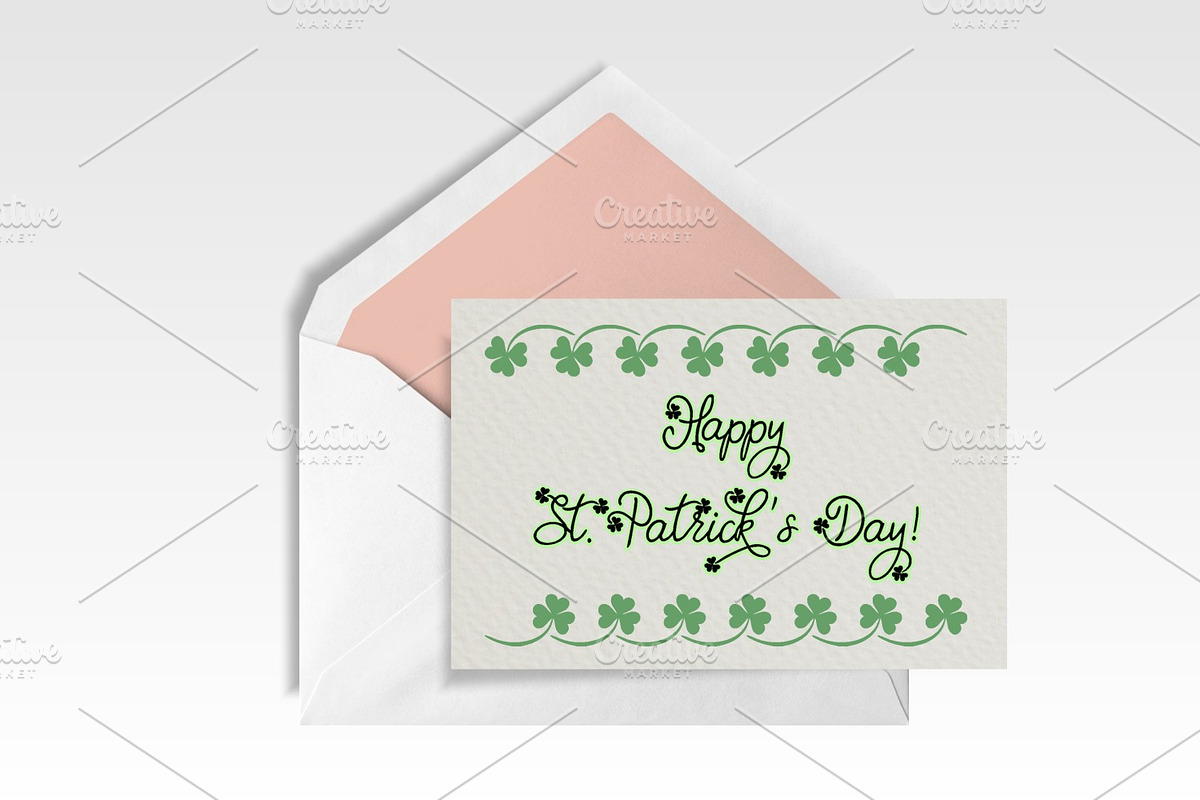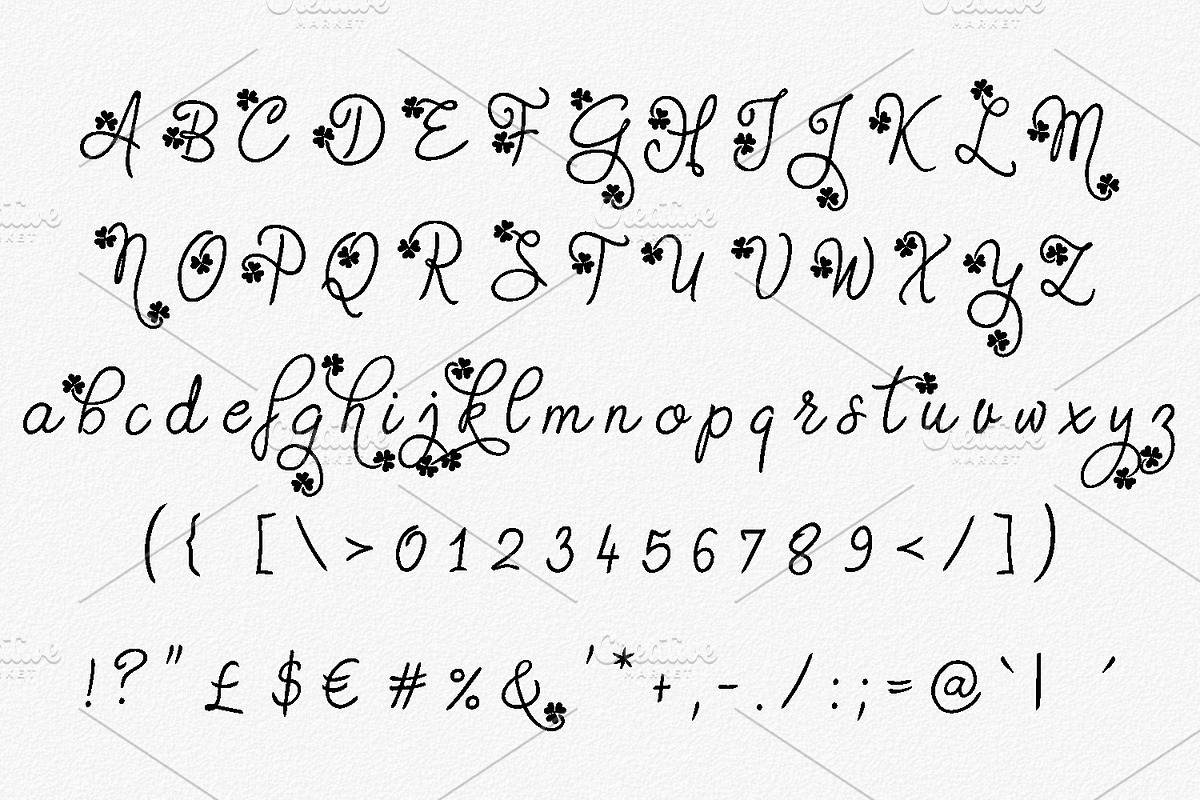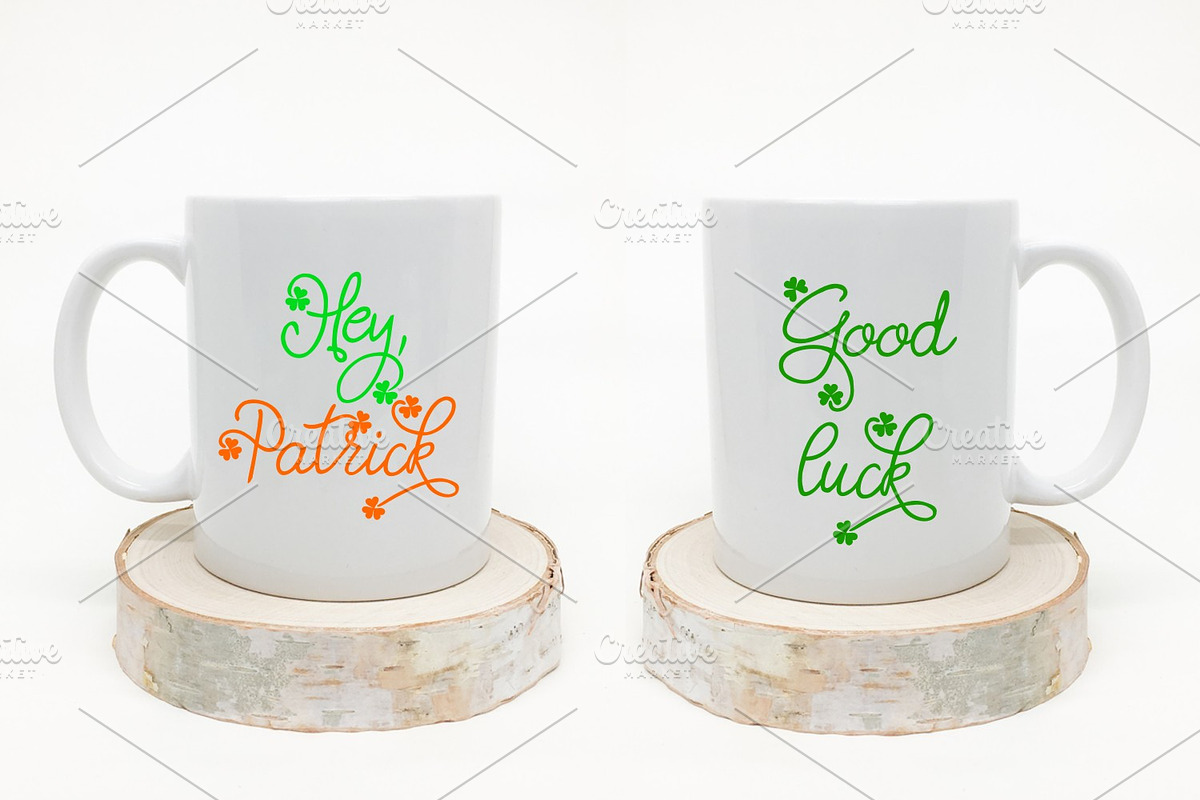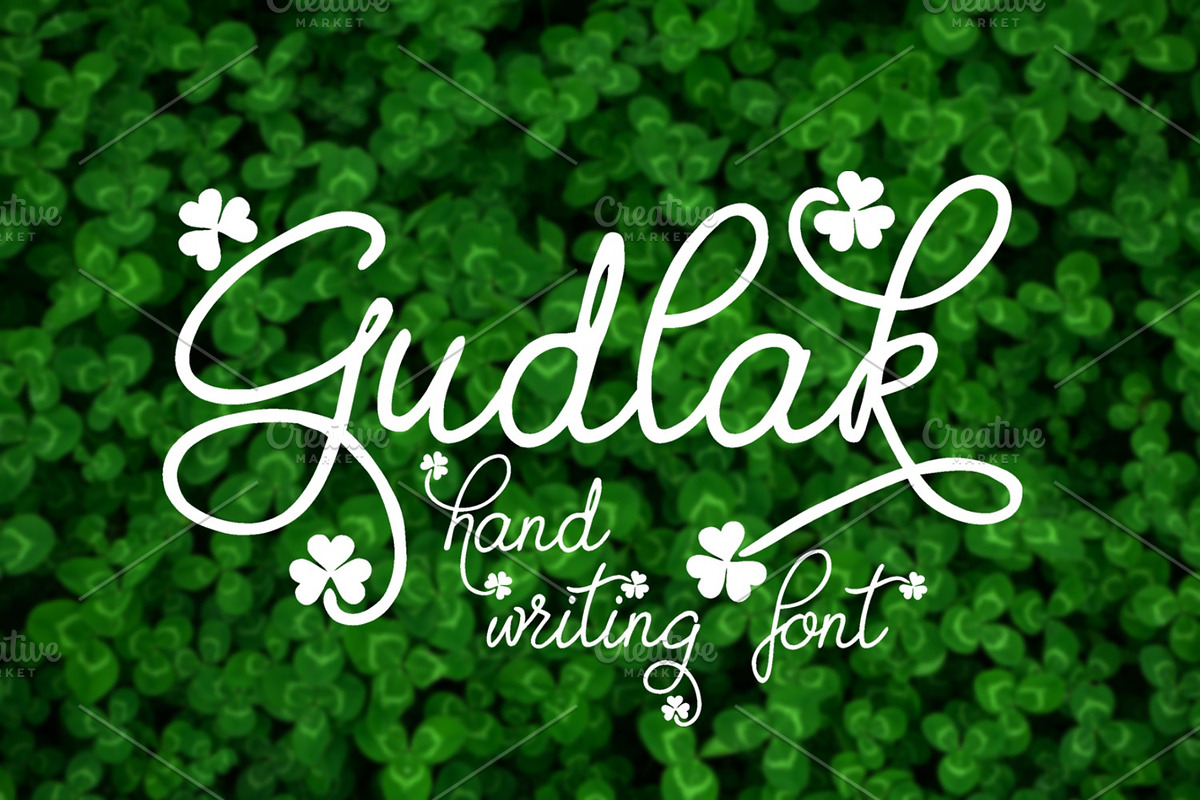
Gudlak
Get ready for St Patrick's Day with this fun handwritten font!
Why Gudlak is worth a look
Gudlak by Digital Typeface Studio fits naturally into Branding, posters, packaging, typography.